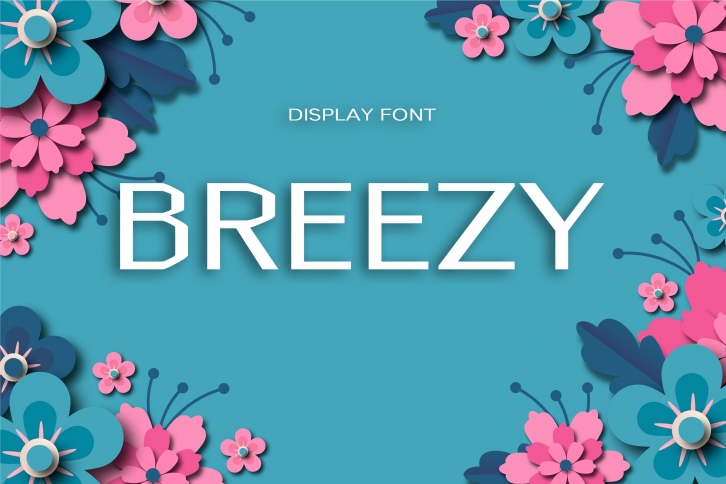
Unique handmade calligraphic Summer Font is a modern display font with alternative flourish lowercase and uppercase characters. It helps you realize your dreams and creations.